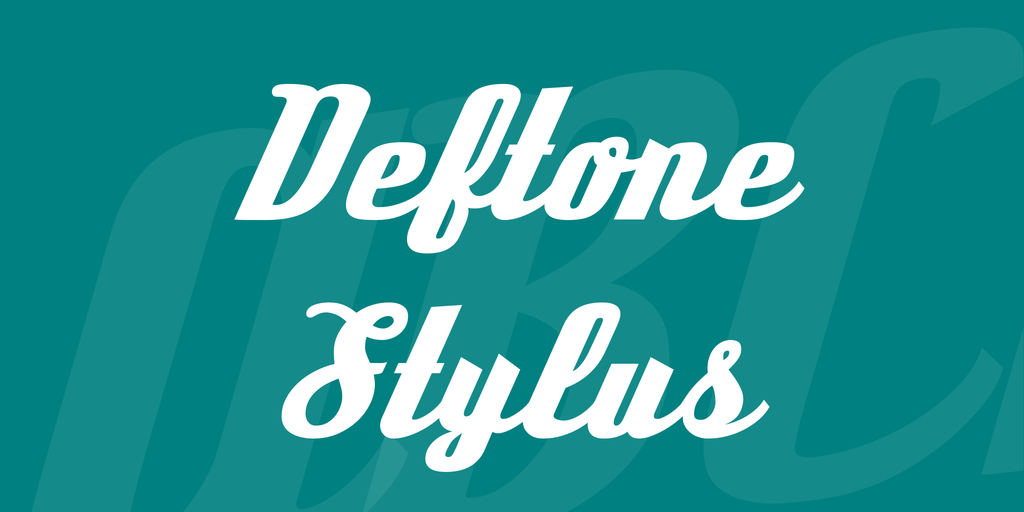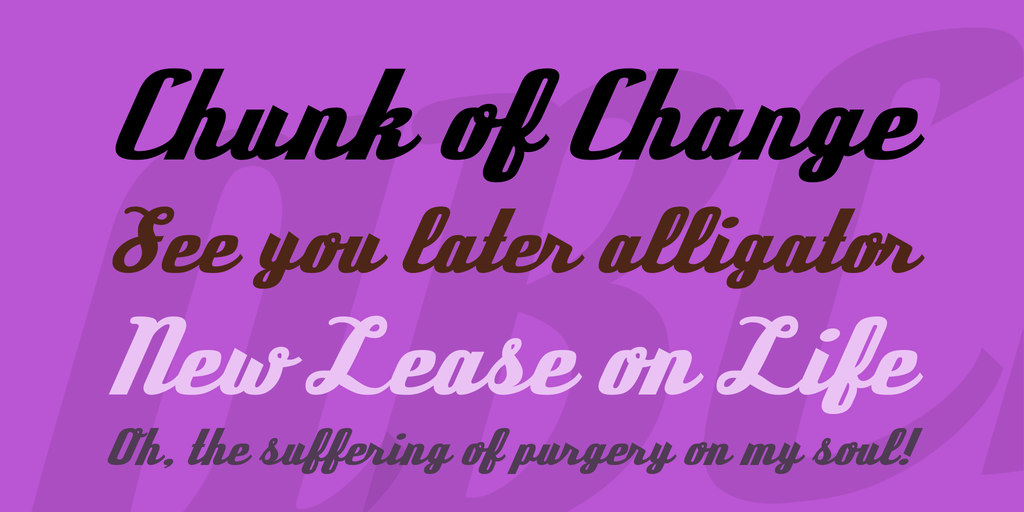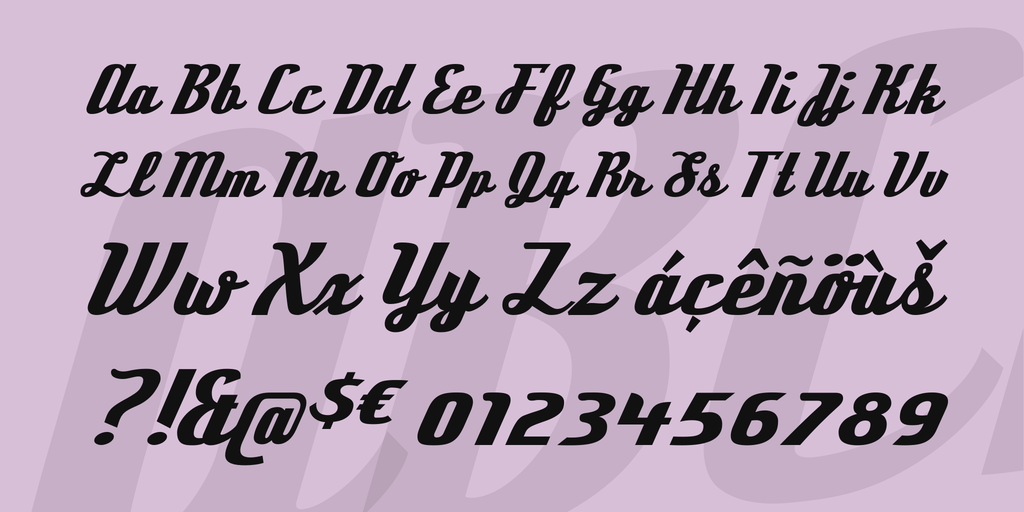
Deftone Stylus Font
Deftone Stylus has been updated and improved. The capital letters’ left hanging swashes have been trimmed back to allow for less chaotic all caps use. Altho, those long swashes were part of the character of Deftone Stylus, they were difficult to work with. The spacing and kerning of the capitals has been completely redone. The lowercase has been refined to look less mechanical and to flow better. The original L, Q, X, x and z have been replaced because, frankly, the original versions were poorly designed and didn’t flow with the other letters. The curl on the lowercase o and w had difficulty connecting with certain letters. Now there are custom OpenType ligatures for difficult pairs: az, azz, cz, dz, ez, ezz, fj, iz, izz, nz, or, os, ox, pz, rz, sz, tr, wr, ws, uz, uzz, yz, zz. These custom pairs will automatically be substituted in OpenType savvy applications.
Deftone Stylus upgrade
Accents have been redesigned to look more balanced. They’re a bit taller so the overall font size may appear smaller in some applications. Many more languages are supported. OpenType fractions and numeric ordinals have been added. Mathematical operators have been redrawn. The star shaped bullet has been replaced by a more conventional bullet. The original star is in the star glyph position (Unicode 22C6). Vertical metrics have been altered to allow for taller accents and cross-browser compatibility.